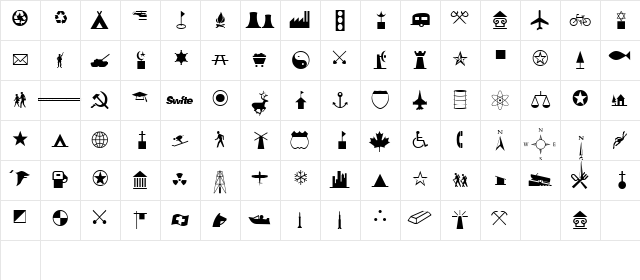
International Icons A Regular
Design Context for International Icons A Typeface
International Icons A is a composed and adaptable typeface that performs quietly and consistently across a wide range of design contexts.